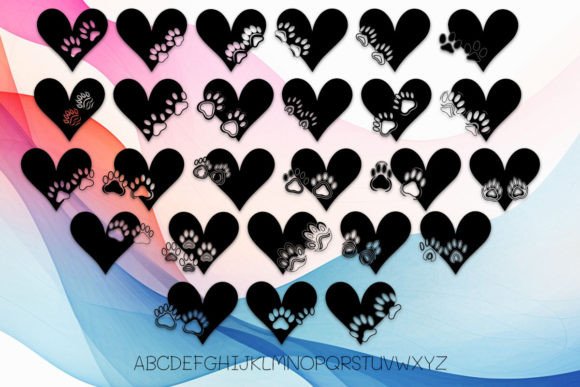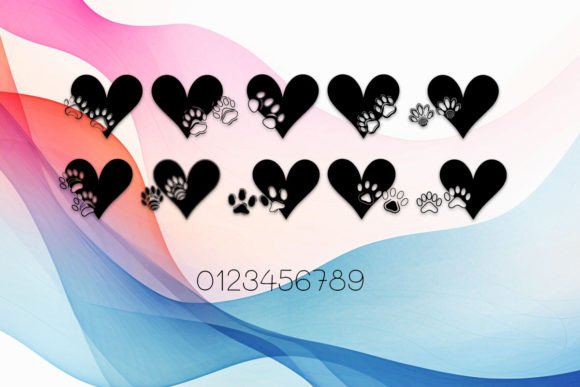
Introduction to Nice Cat Paws Font
Do you remember the moment when a simple yet adorable design element sparks a burst of creativity in your project? For designers, this feeling is priceless. It’s the moment when you stumble upon a perfect design resource that elevates your work to the next level. And that’s exactly what the Nice Cat Paws Font is all about.
This charming font features 36 characters, including 26 uppercase letters and numbers 0-9, accompanied by adorable heart-shaped symbols and playful cat paws. The result is a perfect blend of cuteness and character that will add a unique touch to your digital projects. Whether you’re working on a design project or creating a fun social media graphic, the Nice Cat Paws Font is an invaluable resource that will bring a smile to your face and delight your audience.
Key Features of Nice Cat Paws Font
- Unique and Creative Design: The Nice Cat Paws Font is a fun and quirky design resource perfect for any creative project.
- Transparent Background: This font features a transparent background, making it easy to combine with other design elements.
- High-Quality Design: The Nice Cat Paws Font is a high-quality design resource, suitable for a wide range of applications.
- Perfect for Illustrations and Graphics: The Nice Cat Paws Font is ideal for use in illustrations, graphics, and other creative projects where a fun and playful design is needed.
Honest Review: Nice Cat Paws Font
I recently had the chance to experiment with the Nice Cat Paws Font for a creative project and I must say, I was quite pleased with the results.
Here are some of the things that work well: ✨ The font is incredibly high quality, with crisp and clear lines that make it perfect for any design resource. The transparent background is also a nice touch, allowing for seamless integration with any background image or color scheme. ✨ Additionally, the free download option makes it an excellent choice for designers on a budget.
As with any font, there are some limitations to consider: ⚠️ The Nice Cat Paws Font may not be the best choice for complex or large-scale projects, as it can be prone to pixelation at high resolutions. Additionally, the font’s whimsical nature may not be suitable for all design styles or themes.
Overall, I’m impressed with the Nice Cat Paws Font and would definitely consider using it again in the future. Its unique charm and high quality make it a valuable addition to any designer’s toolkit.
- High quality and crisp lines
- May not be suitable for complex or large-scale projects
- May not be suitable for all design styles or themes
To get the most out of the Nice Cat Paws Font, experiment with different font sizes, colors, and combinations. You can also use it in conjunction with other design elements to create a unique and engaging visual identity.
The Nice Cat Paws Font is perfect for a variety of design projects, including social media graphics, blog posts, and merchandise designs. Its playful and whimsical nature makes it ideal for creative and fun projects.
Yes, the Nice Cat Paws Font includes a transparent background option, allowing you to easily place the font on any design background. This feature is particularly useful when working with complex designs or when you need to create a visually appealing composition.
Q: What is the quality of the Nice Cat Paws Font?
The Nice Cat Paws Font is a high-quality design resource, carefully crafted to ensure crisp and clear typography. With its clean lines and well-designed characters, it’s perfect for a wide range of creative projects, from print to digital media.